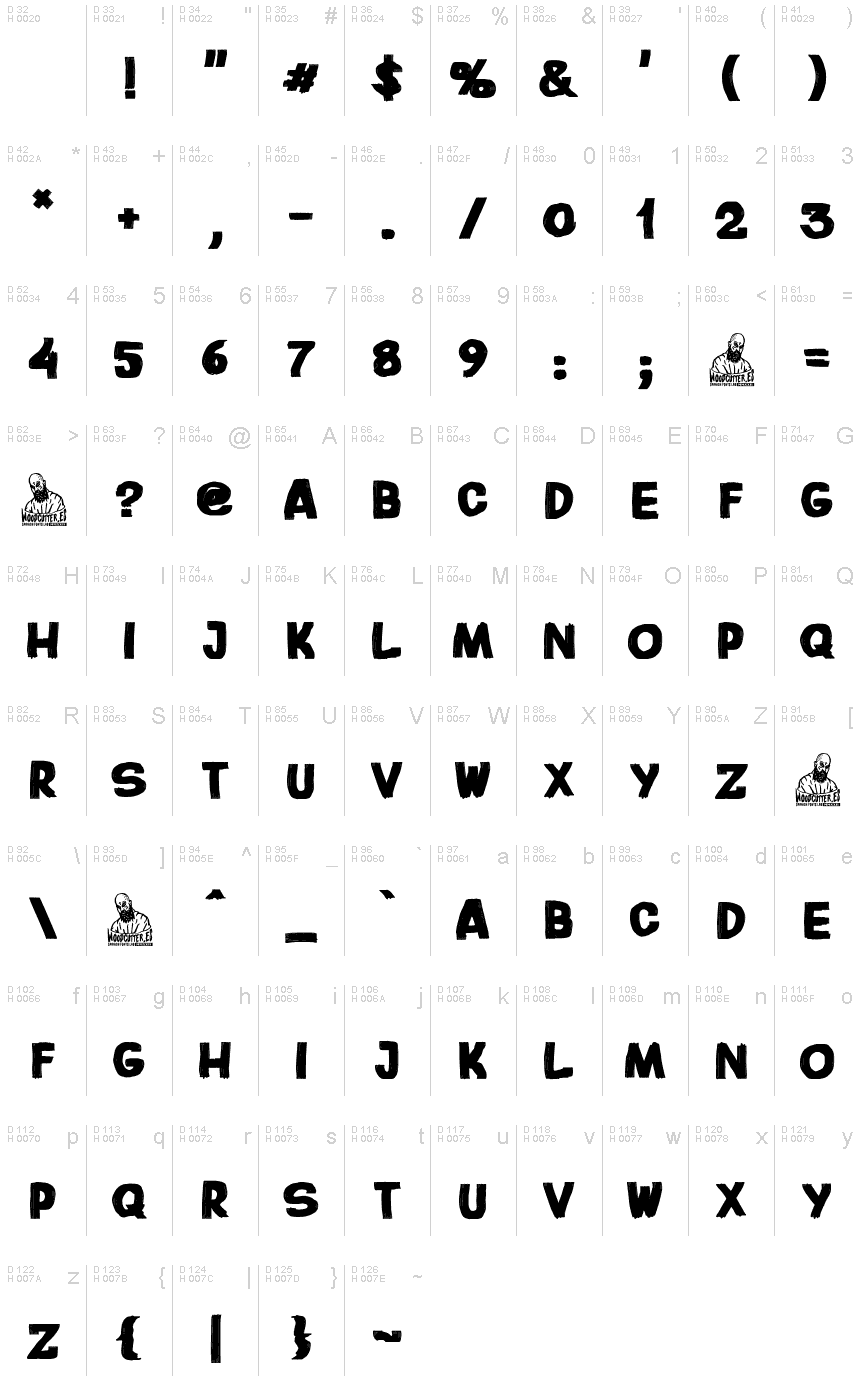
Night Brush
Night Brush is an extraordinary brush font designed by Woodcutter. With its extra-bold weight and semi-expanded width, this font exudes confidence and creativity.
Its handcrafted brush style adds a touch of authenticity to any design project. Perfect for branding, logo creation, and packaging design, Night Brush will bring your designs to life with its dynamic and bold presence.
Whether you're working on a hipster cafe menu or a modern fashion brand, this versatile font will make your creations stand out from the crowd.